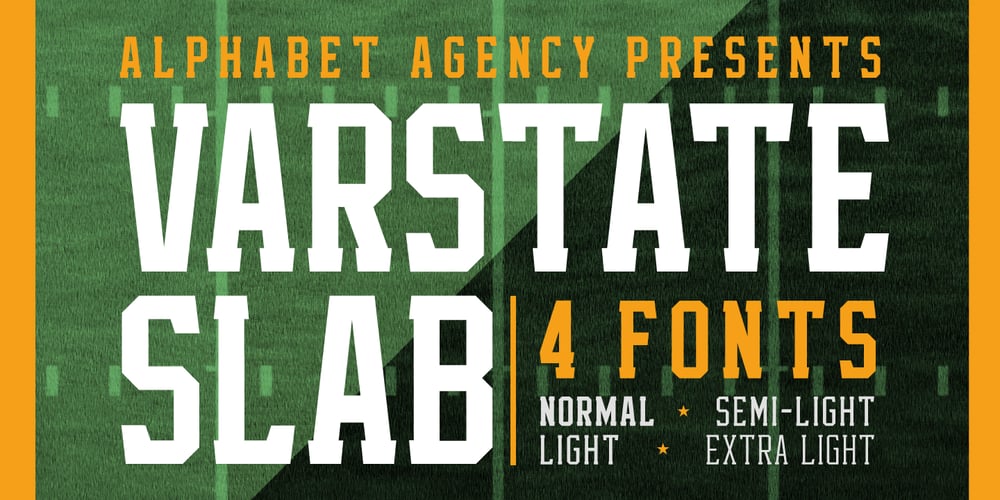
Varstate Slab Font Family was designed by Swinn Jonathan and published by Alphabet Agency. Varstate Slab contains 4 styles and family package options. Varstate Slab font family is a collection of fonts inspired by the varsity sports team name’s lettering seen on apparel such as Letterman jackets, t-shirts and hoodies.The fonts can be used in combination to provide a variety of design options and different looks in genres such as sports, leisure and industry.The font family consists of fonts in 4 weights; Normal, Semi Light, Light and Extra Light.Each font includes Latin basic characters which includes uppercase, lowercase, numbers, punctuation and much more.